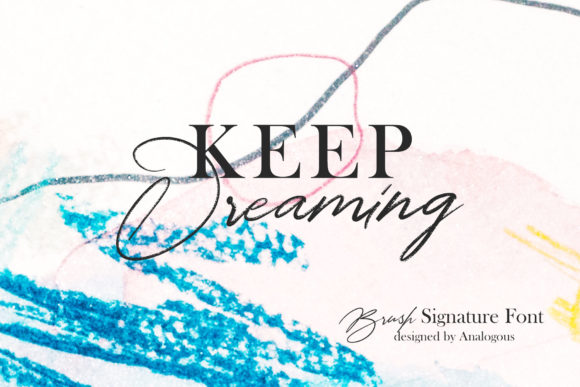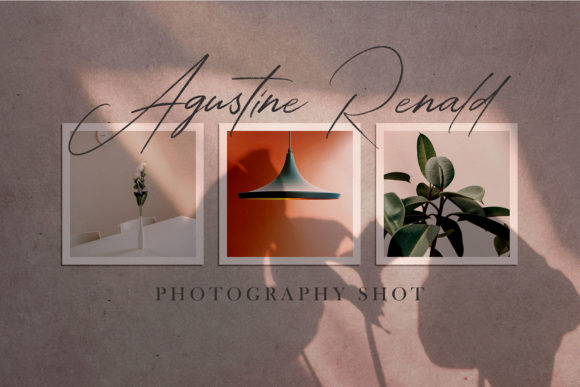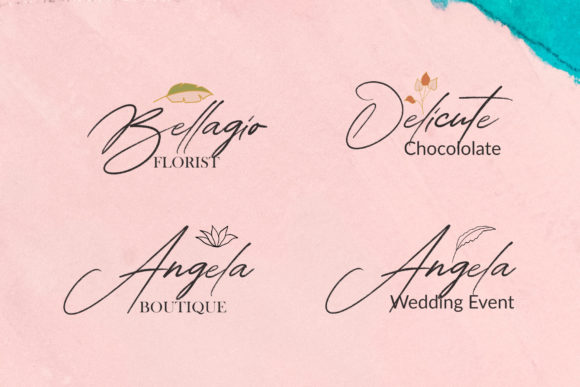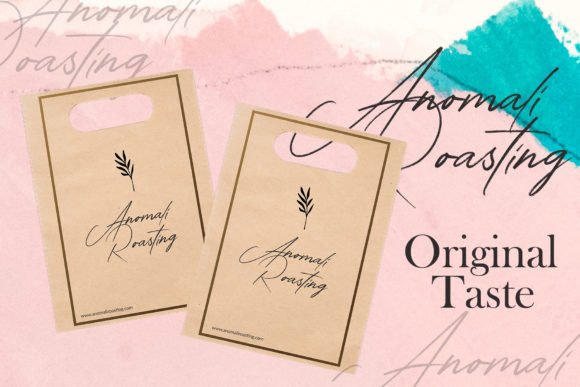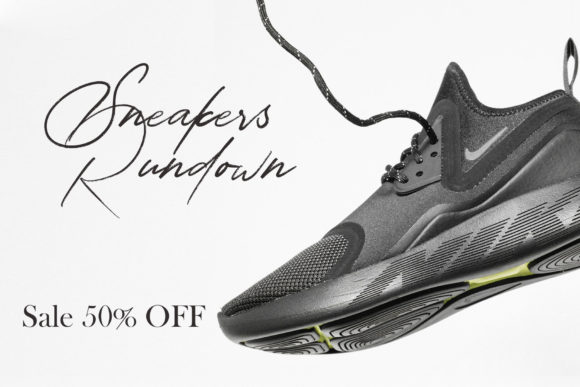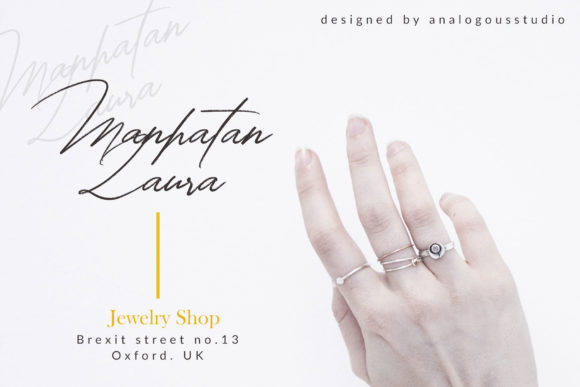
The Magic of Handwritten Fonts
Have you ever been working on a DIY project, pouring your heart and soul into it, and suddenly, you need the perfect font to bring it all together? The search for that special something can be daunting, but what if I told you that I’ve found it?
Meet the Alathena Signature Font – a stunning handwritten font that results from a perfect pairing of a brush pen and pencil. Its endearing and authentic look makes it a game-changer for any DIY project, adding a touch of personality that’s hard to replicate with traditional fonts. Whether you’re a seasoned designer or a crafty enthusiast, this font is sure to bring your projects to life.
For designers, the Alathena Signature Font is a valuable addition to their toolkit, offering a unique and customizable option that can elevate any design. With its versatility and charm, it’s no wonder why this font has become a favorite among creatives.
Alathena Signature Font Key Features
- Unique Characteristics: Alathena Signature Font features elegant, cursive script with a touch of sophistication, making it perfect for signatures, logos, and branding.
Review of Alathena Signature Font
At first glance, the Alathena Signature Font seems to be a beautiful addition to any design project. ✨ The elegant script and refined feel of the font make it perfect for creating a luxurious or sophisticated atmosphere in your designs.
- ✨ The varied letter spacing and connection styles give the font a unique and personal feel.
- ✨ The high-quality rendering and detailed flourishes make the font a pleasure to work with.
However, there are some limitations to consider. ⚠️ While the font is highly customizable, it can be a bit overwhelming to navigate the many options.
- ⚠️ The font may not be the best choice for projects that require a more modern or edgy feel.
- ⚠️ Some users may find the font’s connection styles a bit inconsistent.
Overall, I would say that the Alathena Signature Font is a solid choice for designers looking to add a touch of elegance to their projects. While it may have some limitations, its unique feel and high-quality rendering make it well worth considering.
For the best results, use the Alathena Signature Font in titles, headings, and body text to create a cohesive and professional look. You can also use it to create custom logos, graphics, and other design elements.
- Business cards and stationery